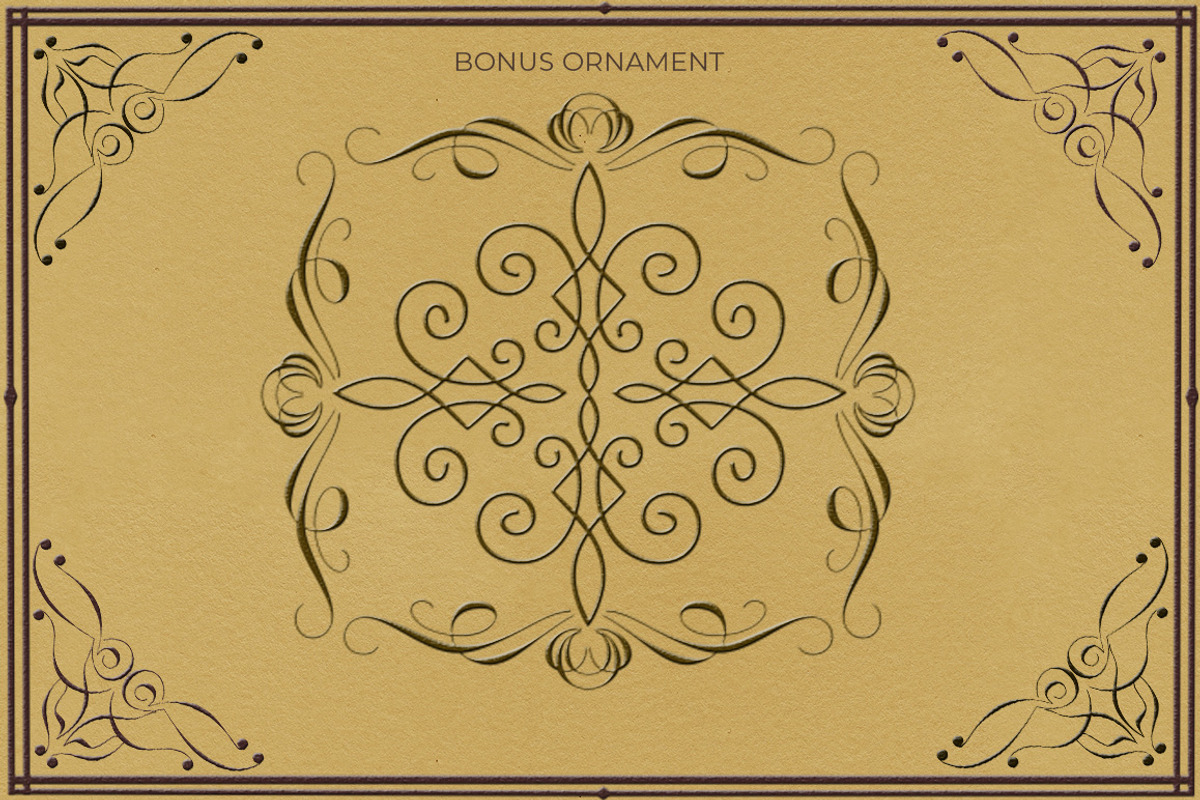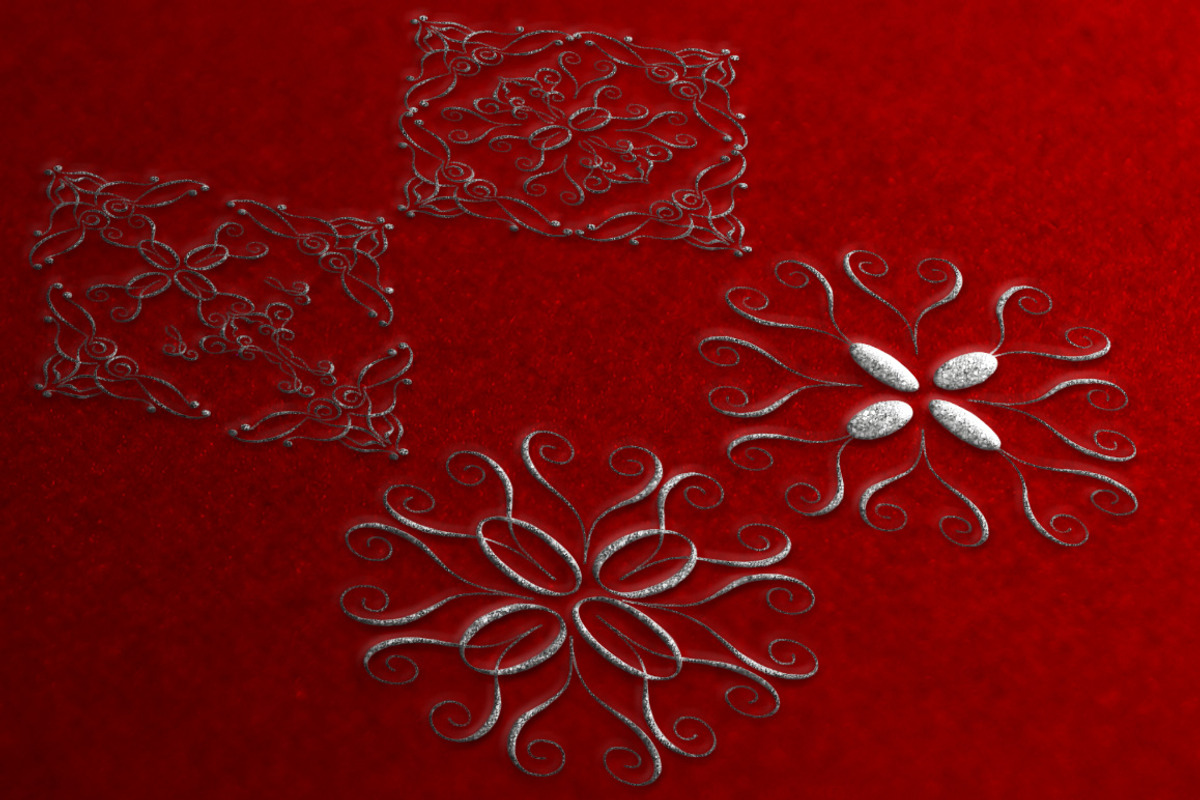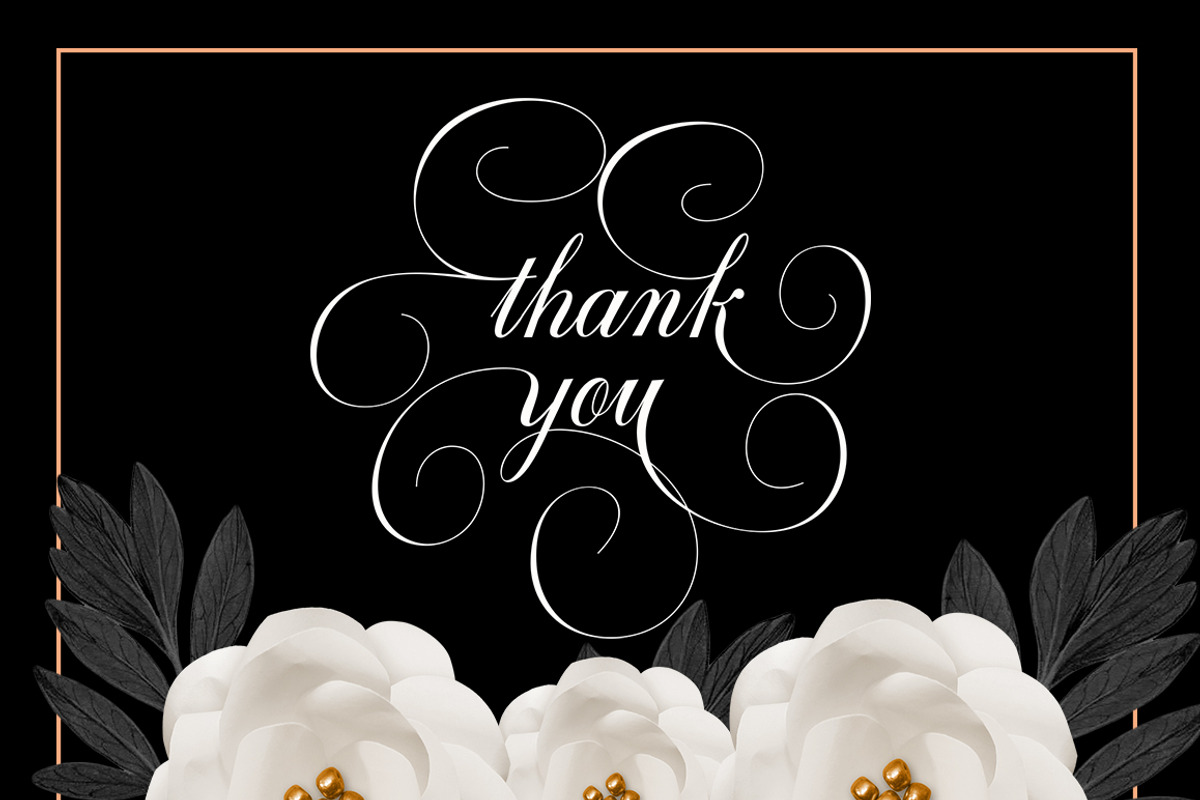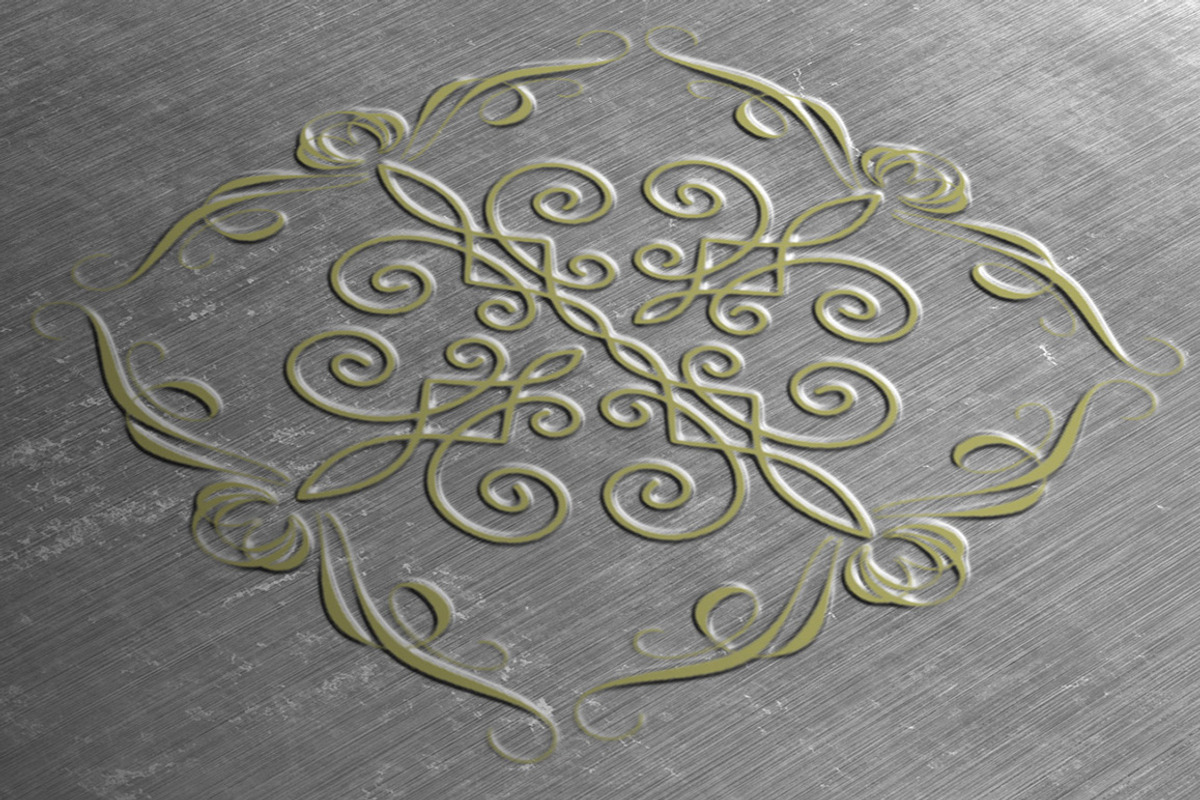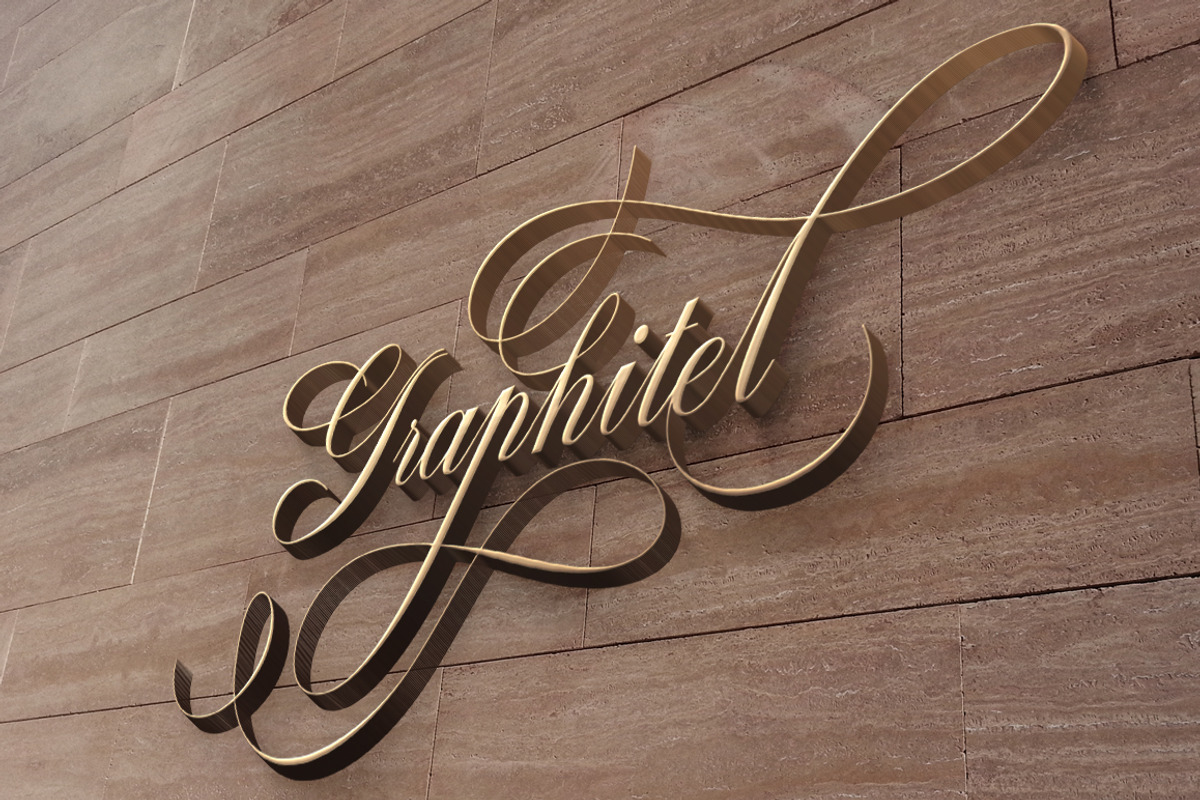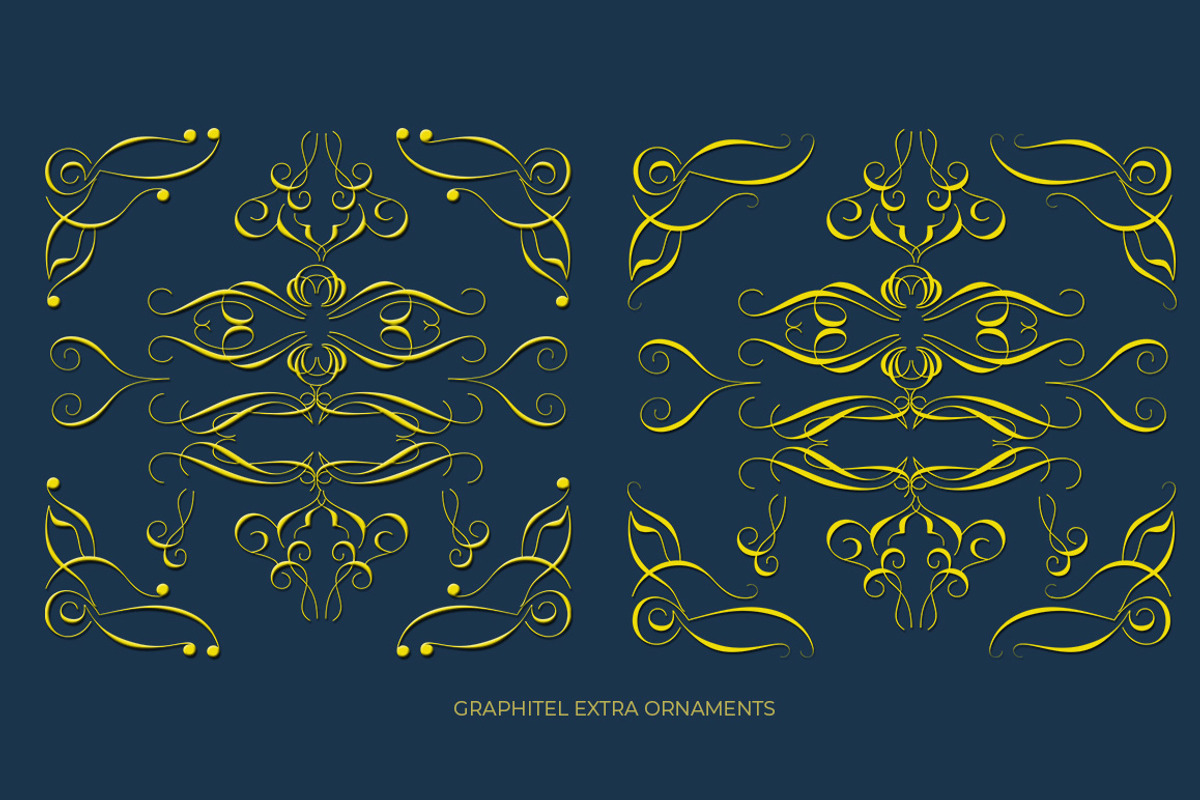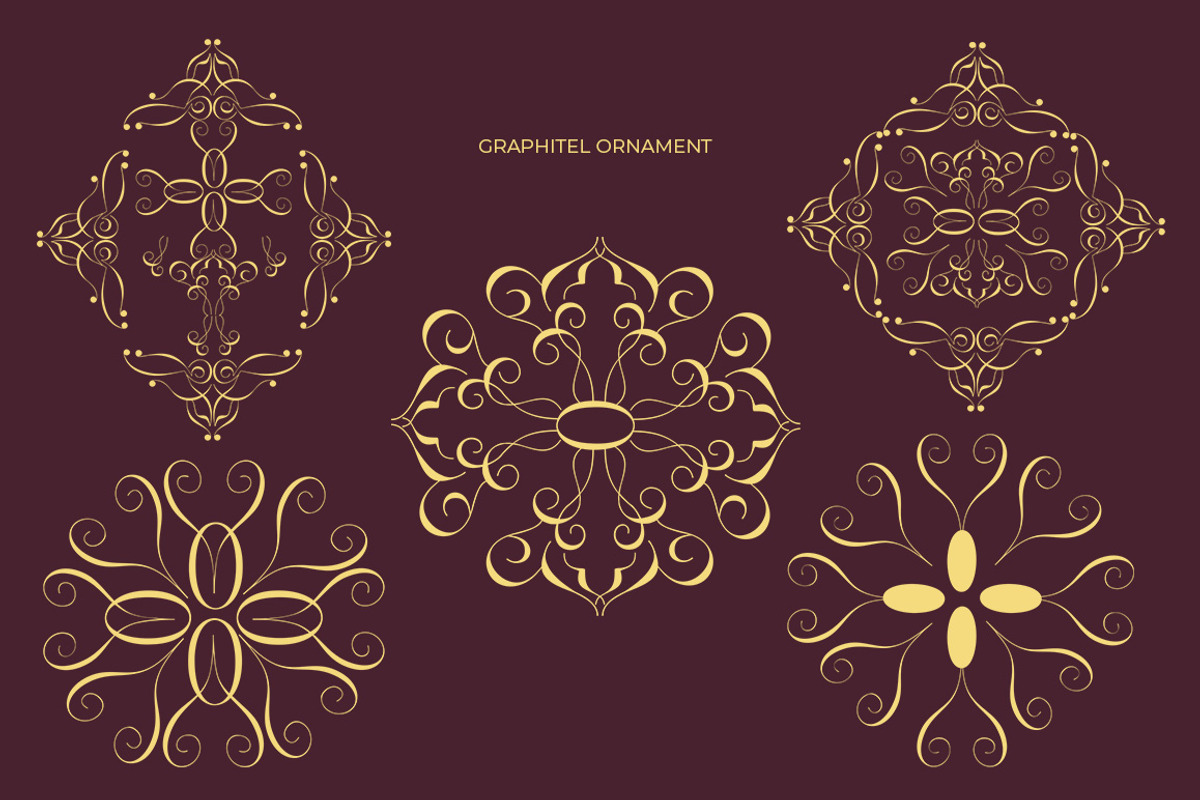
Graphitel Script + Ornaments a calligraphy script font that comes with beautiful alternative characters. a mixture of copper calligraphy with handleting style. Designed to bring style elegance. Graphitel Script attracts such a subtle, clean, feminine, sensual, glamorous, simple and very readable typeface. The classic style is perfect to apply in various formal forms such as invitations, labels, menus, Logos, fashion, make up, stationery, letterpress, romantic novels, magazines, books, greeting / wedding cards, packaging, labels.
Graphitel Script including multiple language support. With OpenType features with stylish alternatives, ligatures and characters, allowing you to mix and match pairs of letters to fit your design, as well as a touch of ornament to make this font look elegant.